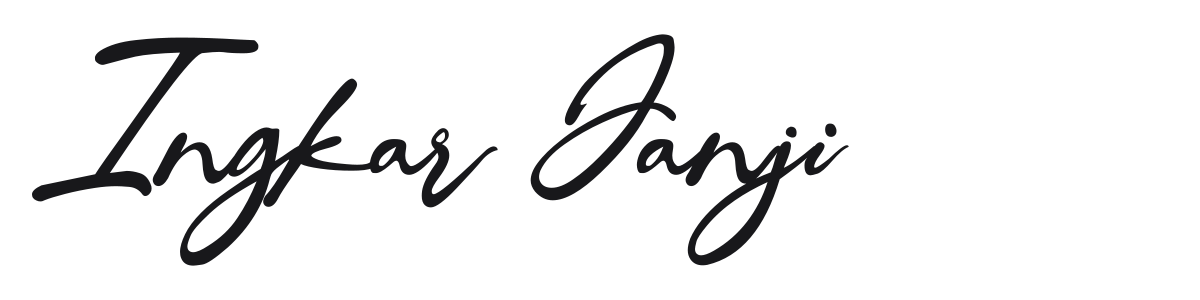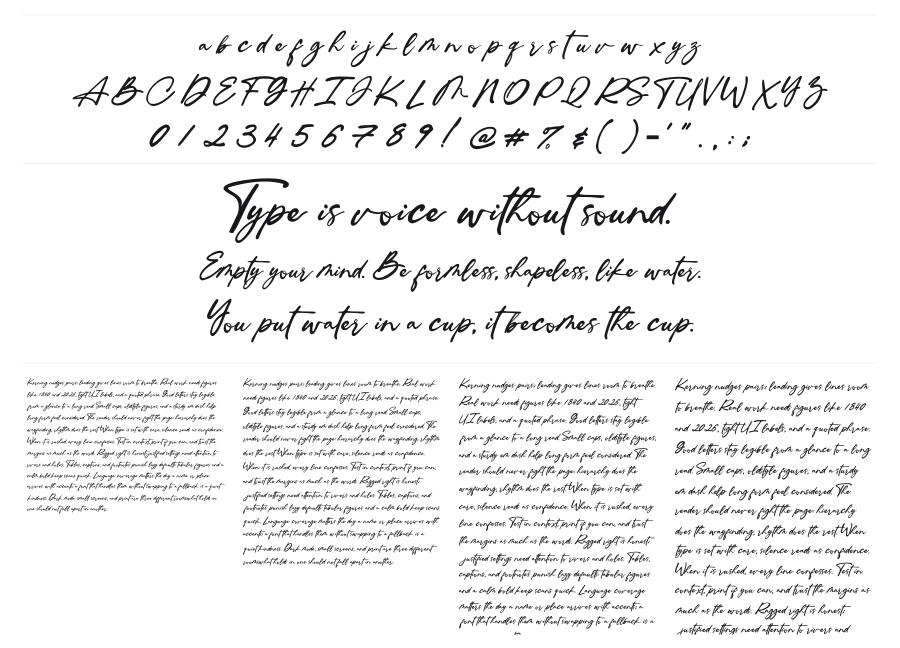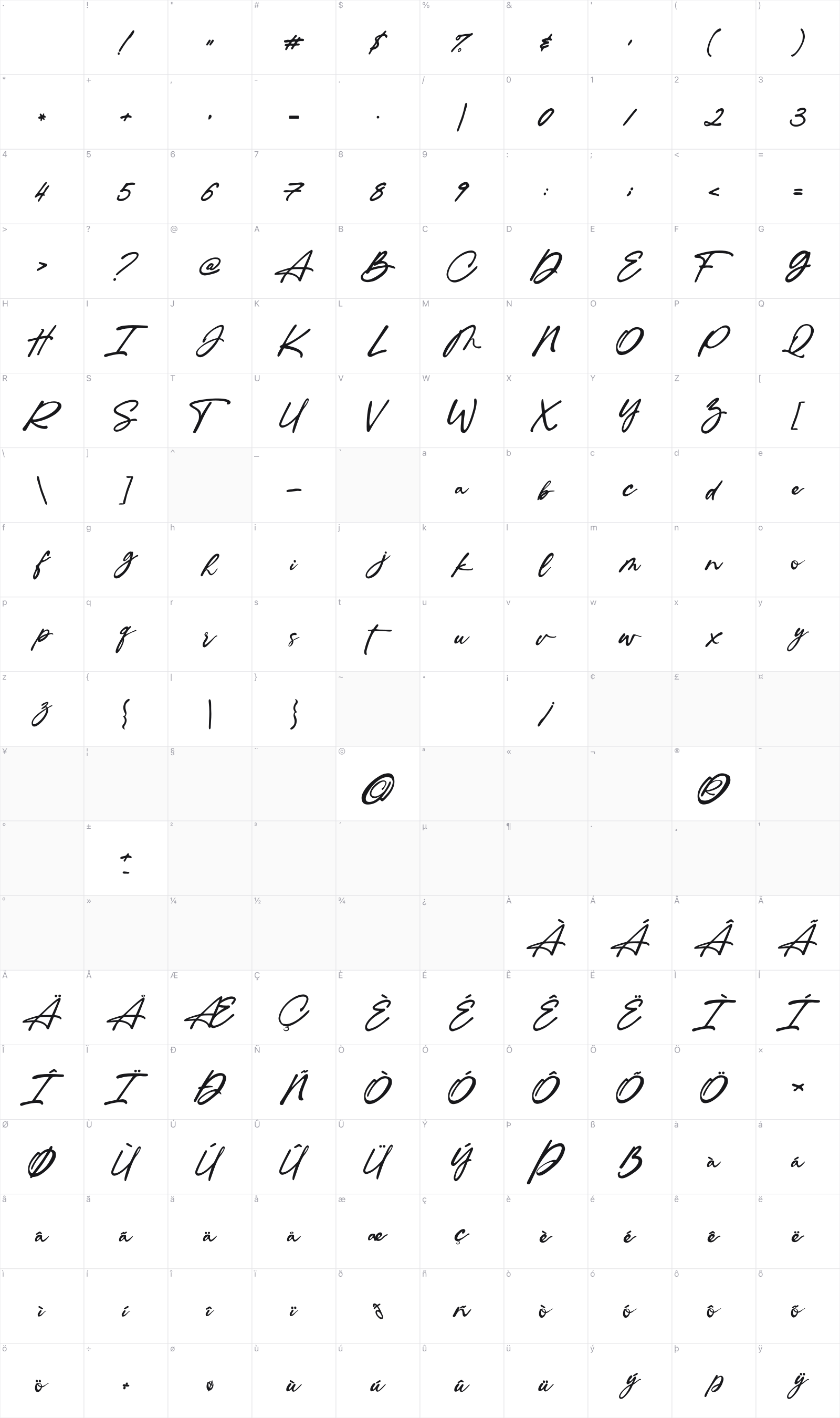
Ingkar Janji
Ingkar Janji is a lush brush script from Stringlabs with fluid connections and strong ink-like stroke contrast. The loose, energetic joins and sweeping swashes give it an authentic handwritten feel without feeling sloppy. It carries the kind of warmth that works across wedding stationery, artisan branding, and lifestyle packaging.